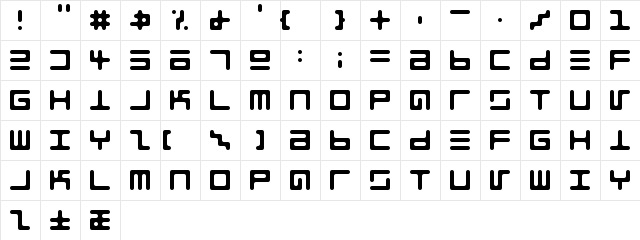
EppsEvans Round
Design Context for EppsEvans Typeface
EppsEvans uses gentle rounded endings to create a warm, inviting typographic personality — less corporate than geometric sans, more refined than playful display fonts.
A natural fit for tech startups, health and wellness brands, children's products, and friendly consumer apps.
Font Pairing: Pairs well with a rounded or humanist sans for body copy, maintaining the friendly tone without relying on EppsEvans to carry extended reading.
Pro Tip: Pair EppsEvans with a geometric sans for a balanced system — the rounded softness works as a warm counterpoint to harder-edged companions.